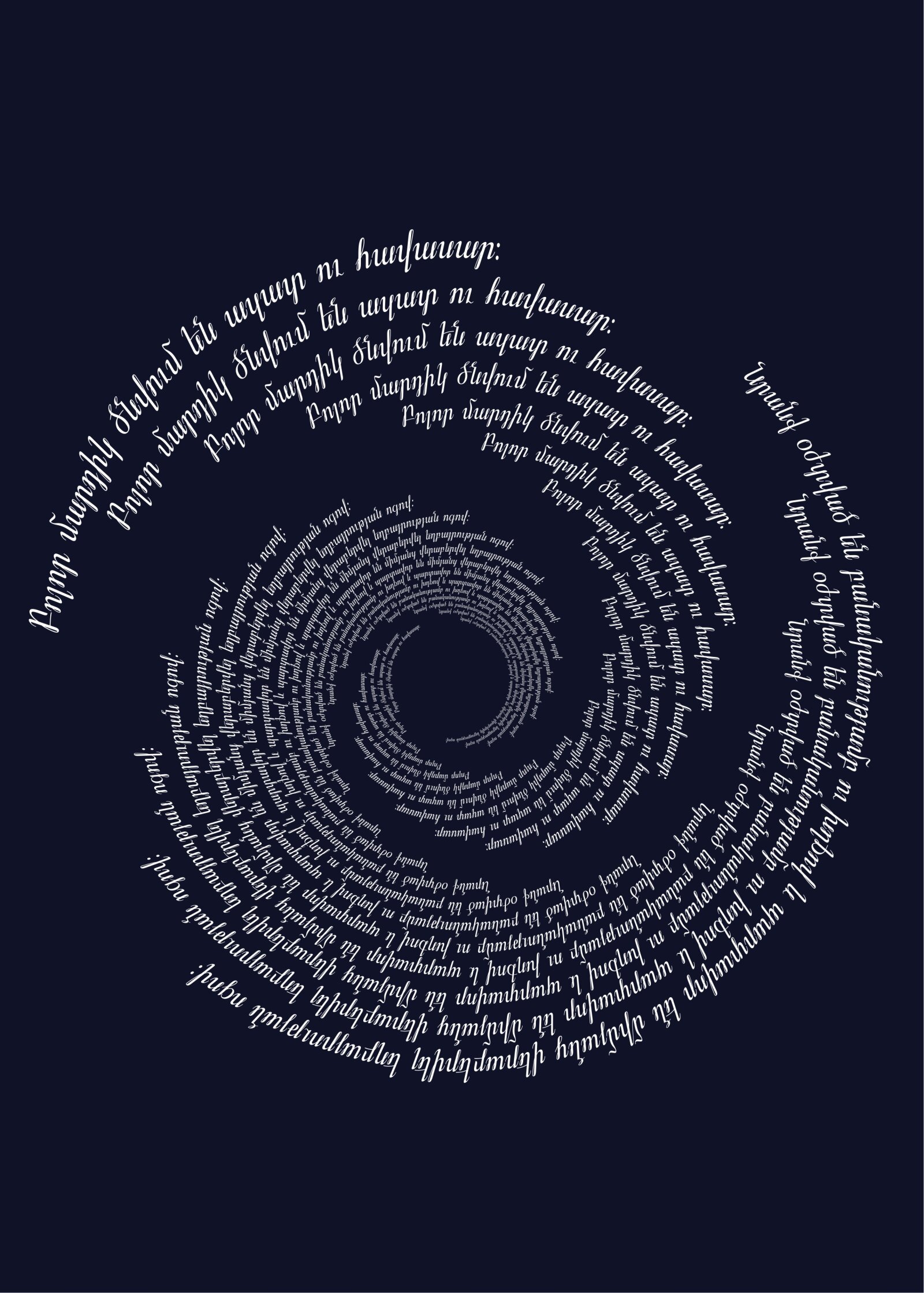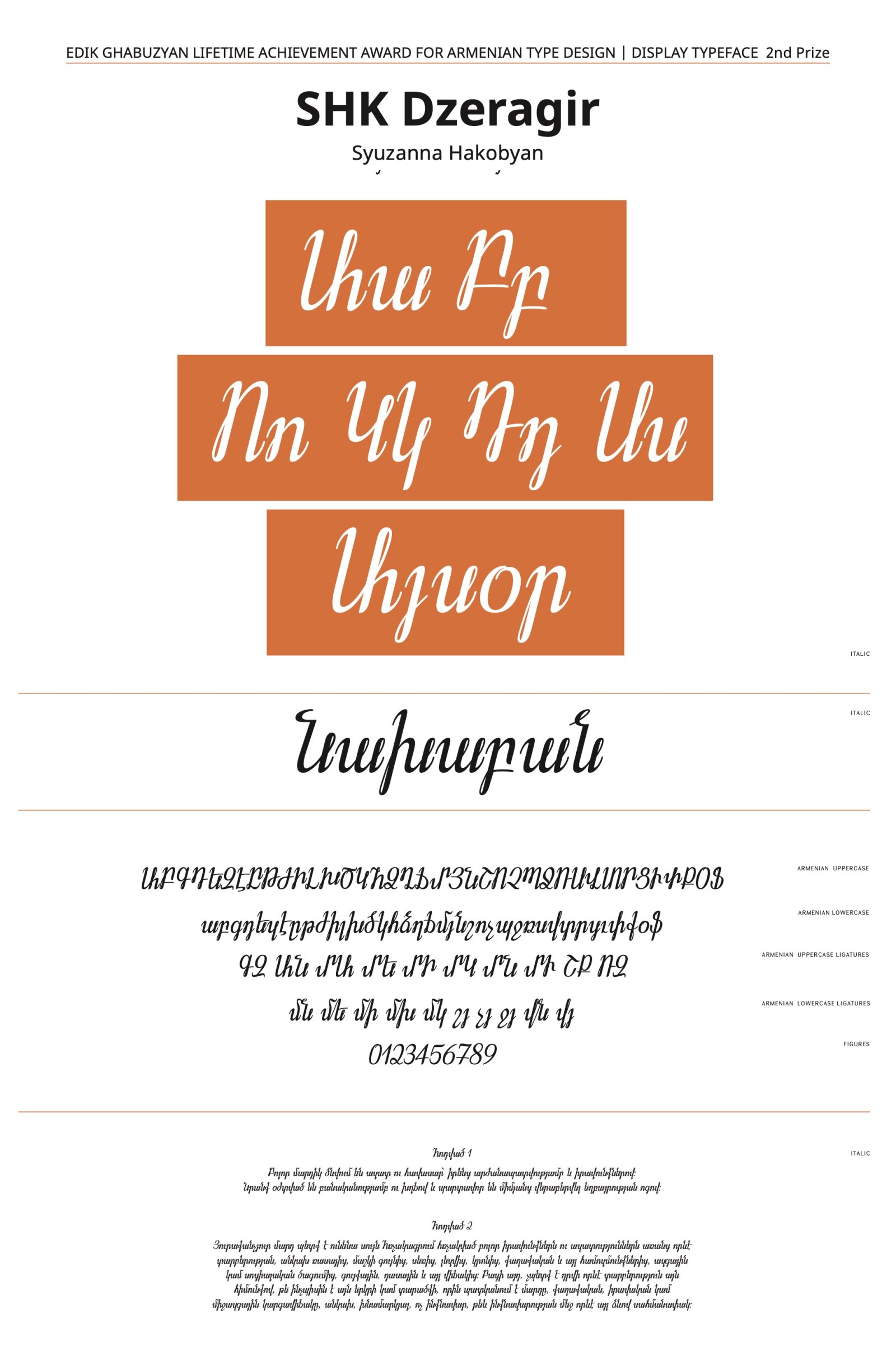
SHK Dzeragir
by Syuzanna Hakobyan
Armenian Special – Ghabuzyan Lifetime Award
For many years I have tried to understand handwriting and also the psychology of that. I would like to digitalize famous poets' interesting handwriting. During my deep research, I understood that is impossible because when someone writes the same letter at a different time or different mood it can not be the same. I can not design someone’s handwriting font. My typeface is just a design of a style of handwriting.